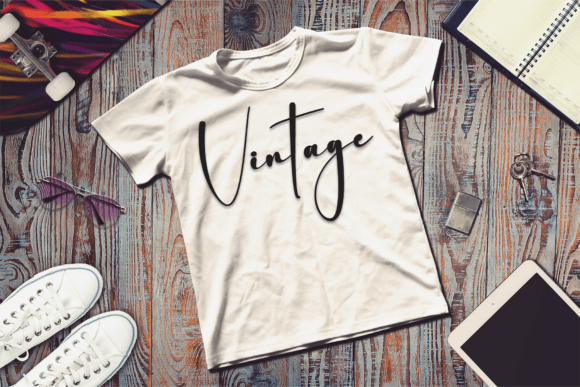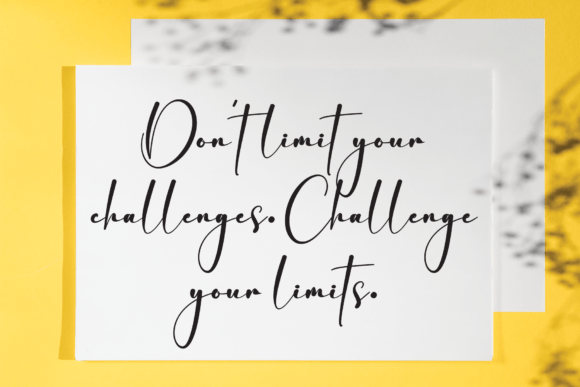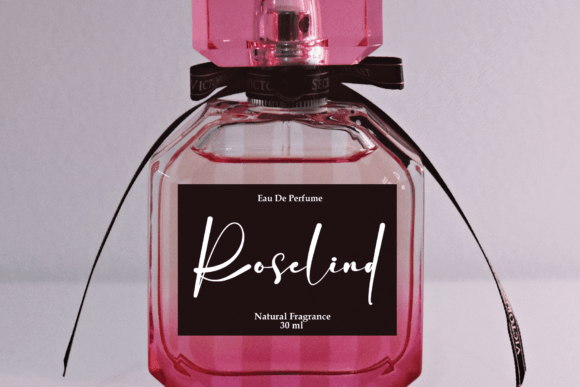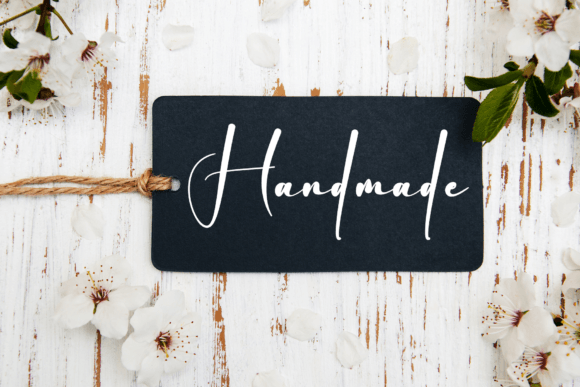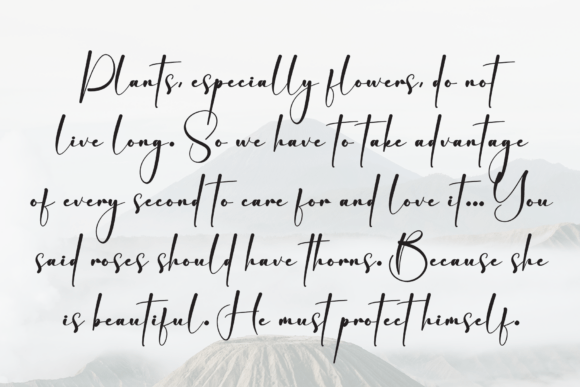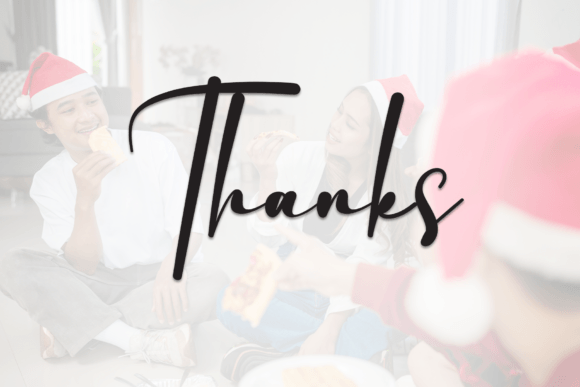
The Magic of the Hangouth Christmas Font
As the holiday season approaches, I find myself rummaging through old Christmas cards, reminiscing about the joy and love that goes into creating them. It’s in these moments that I’m reminded of the importance of a well-designed font – one that evokes warmth, elegance, and the magic of the season. And that’s exactly what the Hangouth Christmas Font embodies.
This stylish and elegant script font is perfect for adding a personal touch to your holiday designs. Whether it’s a wedding invitation, a thank you card, or a quote, the Hangouth Christmas Font is sure to make it extra special. Its value lies in its versatility – it can be used for a wide range of designs, from logos to business cards, and its handwritten feel makes it a standout choice for designers looking to add a unique touch to their work.
Hangouth Christmas Font Key Features
- Font Family: Hangouth Christmas Font is a unique, hand-drawn font designed specifically for Christmas and winter-themed projects.
- Unique Characteristics: The font features a playful, hand-drawn style with intricate details and ornaments, making it perfect for adding a touch of whimsy and festivity to designs.
Hangouth Christmas Font Review
As a designer, I was excited to dive into the Hangouth Christmas Font. Here’s my honest review:
- The font’s playful and festive feel is perfect for Christmas-themed projects. It’s a great choice for cards, invitations, and social media graphics.
- The font’s limited character set may not be suitable for longer text-based projects, such as novels or essays.
- The font’s design may not be suitable for corporate or professional projects, as it’s more geared towards casual and creative applications.
- There’s limited support for languages other than English, which may be a concern for designers working on multilingual projects.
Overall, I think the Hangouth Christmas Font is a fun and versatile choice for designers looking to add some holiday cheer to their projects. While it may have some limitations, it’s a great option for those who want to create festive and playful designs. Just be aware of its limitations and use it accordingly.
To get the most out of the Hangouth Christmas Font, use it for festive designs, such as:
- Christmas card templates
- Holiday party invitations
- Winter-themed social media graphics